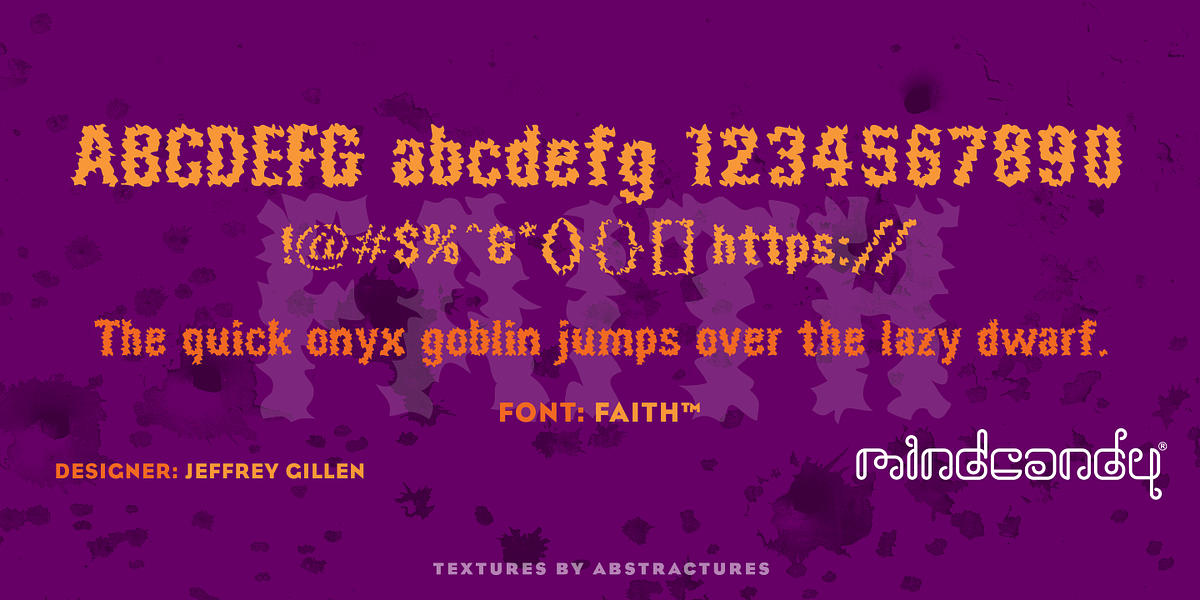
Faith™
This grunge casual script font is designed for Halloween-themed projects. Its spooky and playful personality makes it ideal for posters, invitations, and other designs requiring a touch of grungy charm.